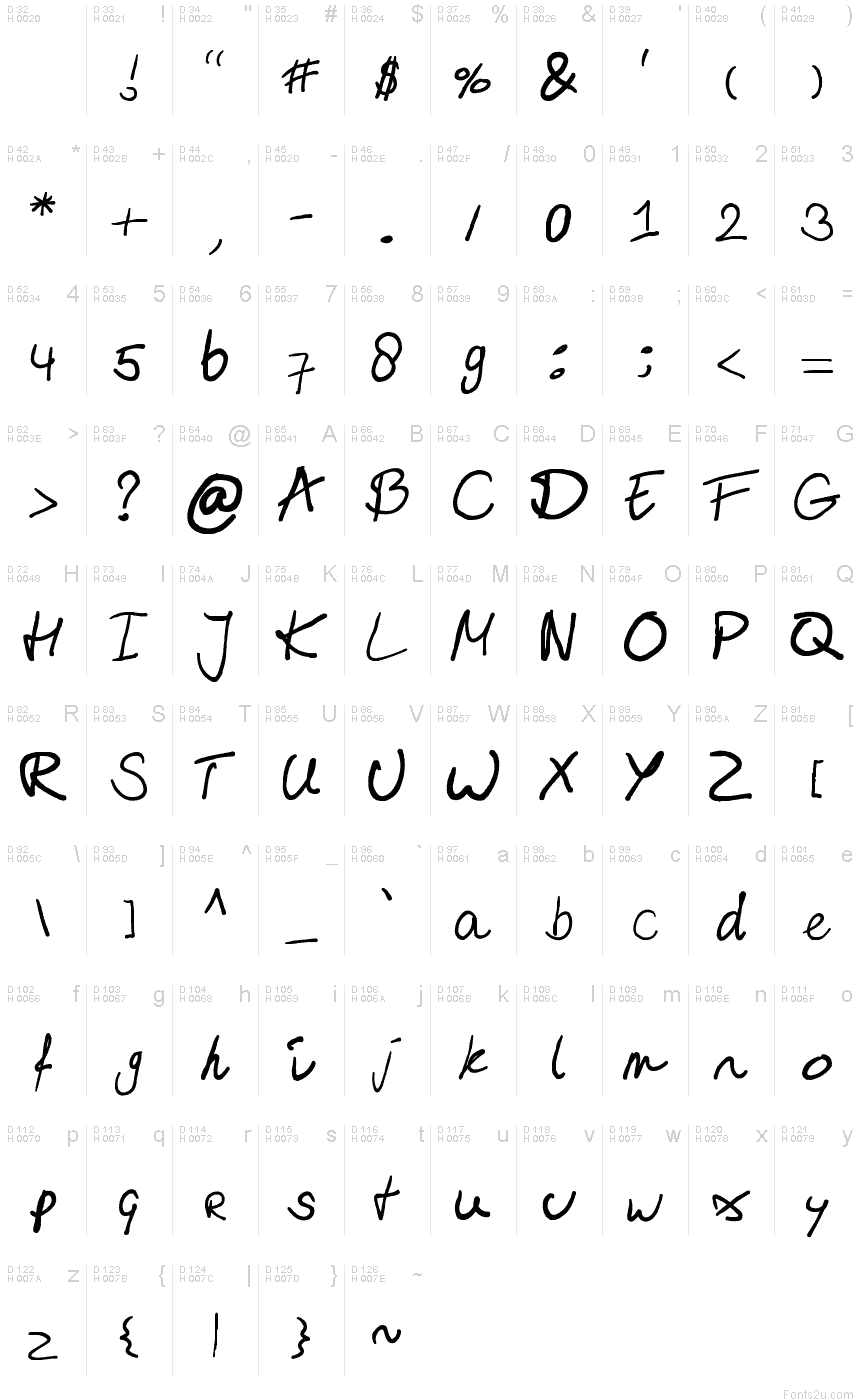
emizfont
Emizfont font is a free handwritten font that captures the quick, scratchy energy of ink racing across a notebook page. Letters lean and wobble with uneven pressure, giving every word a slightly restless, human feel while still staying readable. It’s the kind of typeface that looks like it was dashed off in the margins of a sketchbook, not polished in a lab.
Using Emizfont, your projects instantly pick up that raw, personal tone—great for zines, journal-style quotes, band posters, youth event flyers, rough storyboards, and scrapbook titles. This free font shines when you let it run large in headings or short lines of text, then anchor it with a clean sans-serif body typeface for contrast.